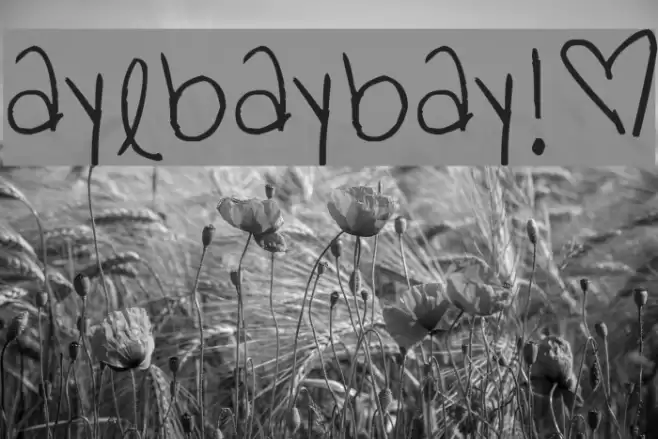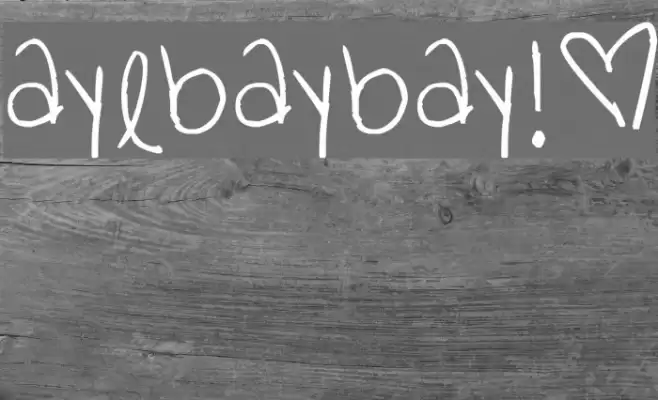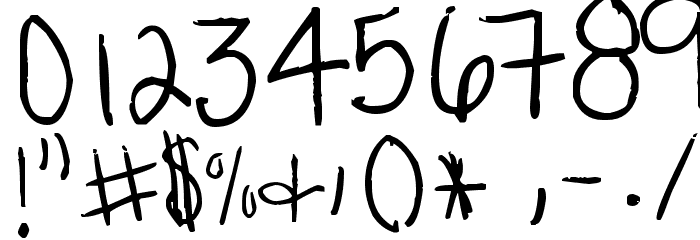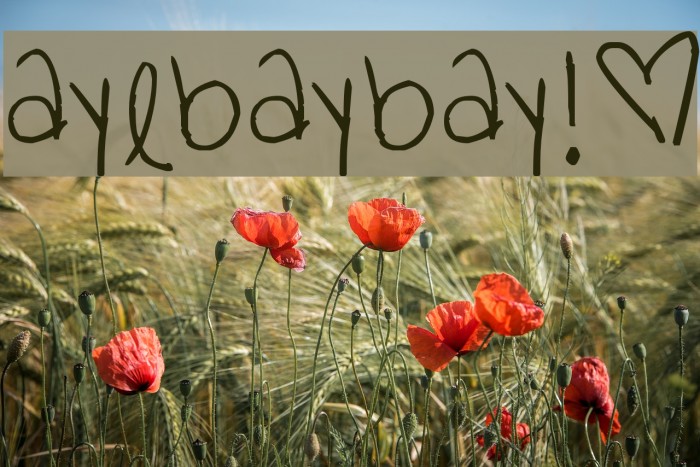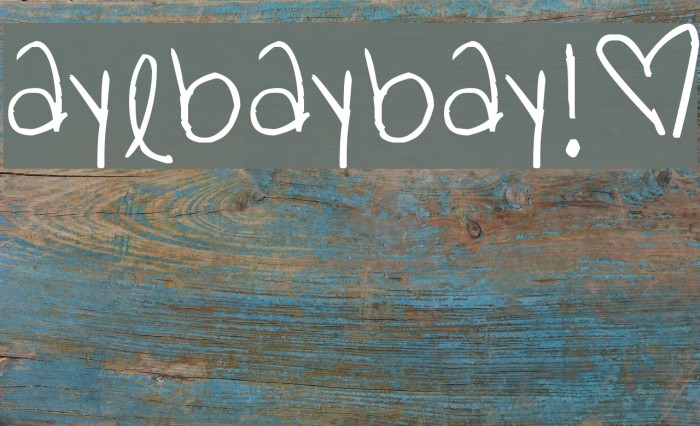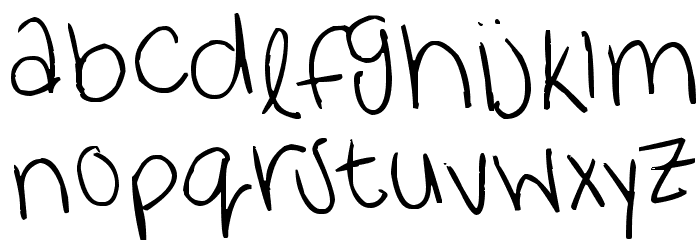
ayebaybay!® Font
ayebaybay!® Description
This font features a playful and casual handwritten style, characterized by its irregular strokes and organic flow. The uppercase letters are bold and slightly uneven, giving a sense of spontaneity and creativity. The lowercase letters maintain a consistent style with rounded edges and varying heights, adding to the informal and approachable feel. Numbers and special characters follow the same playful design, making them easily recognizable while maintaining the overall aesthetic. The font's unique charm lies in its imperfect lines and dynamic forms, making it ideal for projects that require a personal touch.
A playful, casual handwritten font with irregular strokes and an organic flow from Handwritten fonts.
- Proposed Projects: Ideal for greeting cards, children's books, casual branding, and social media graphics.
- Overall Style: Casual
- Use Case: Logos, Headlines, Informal Text